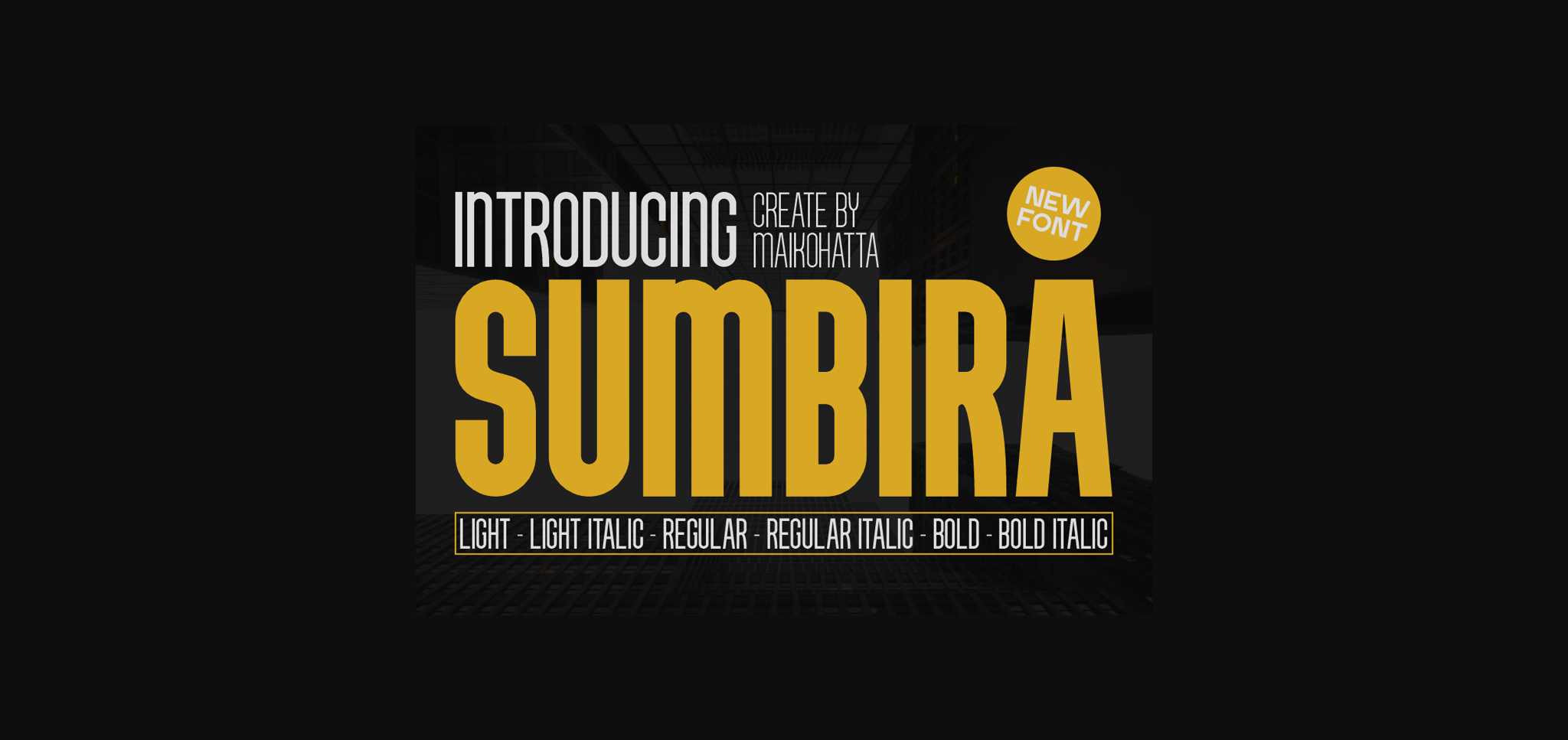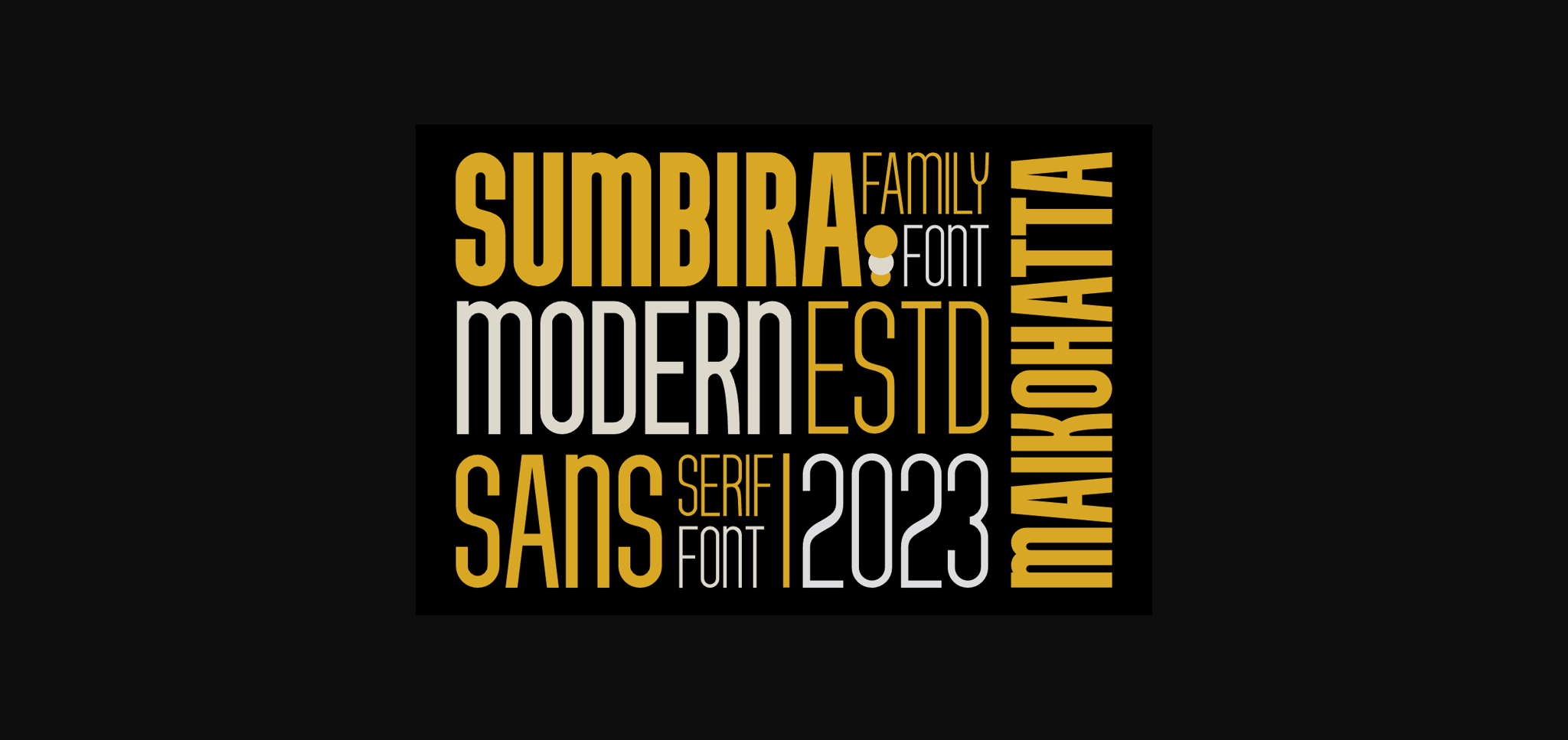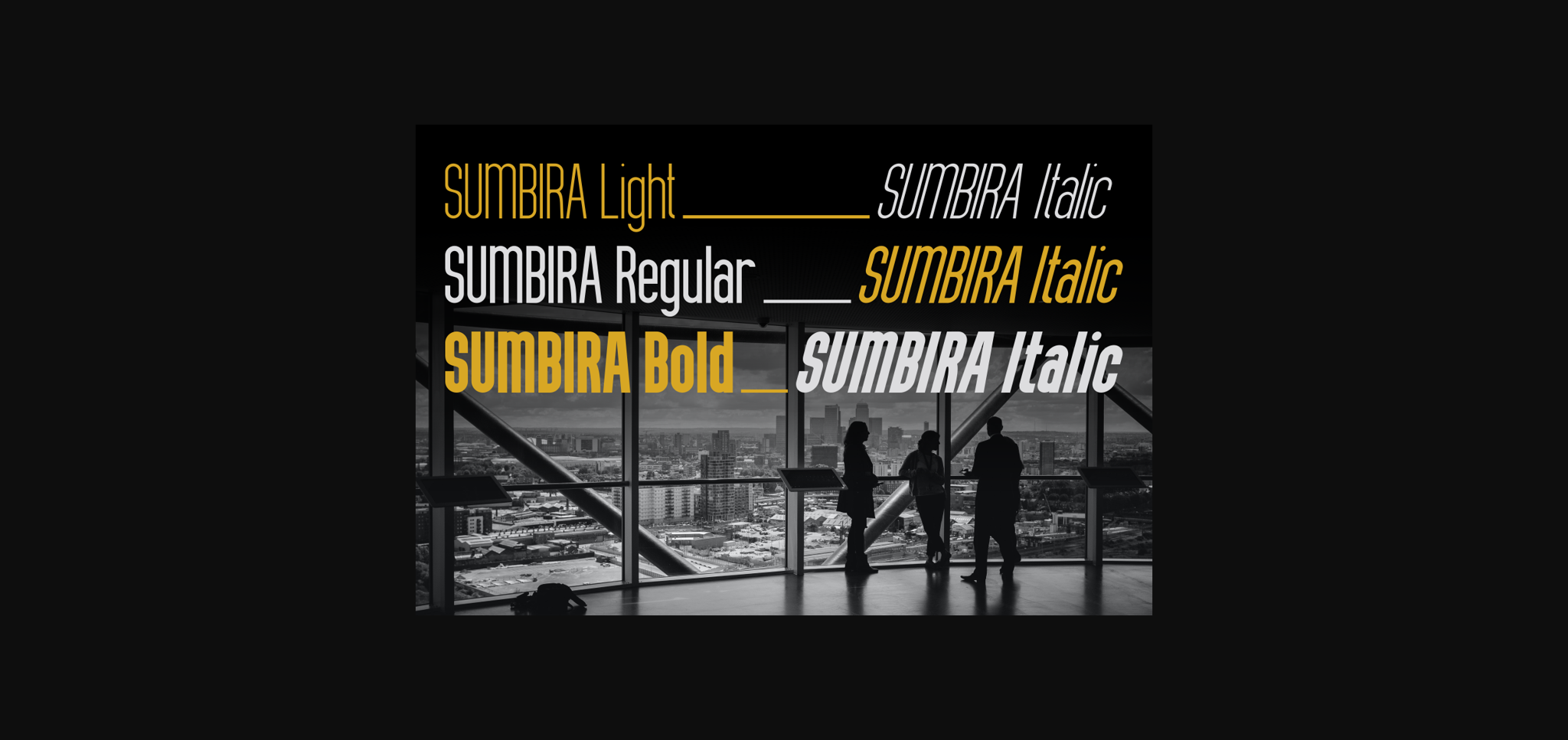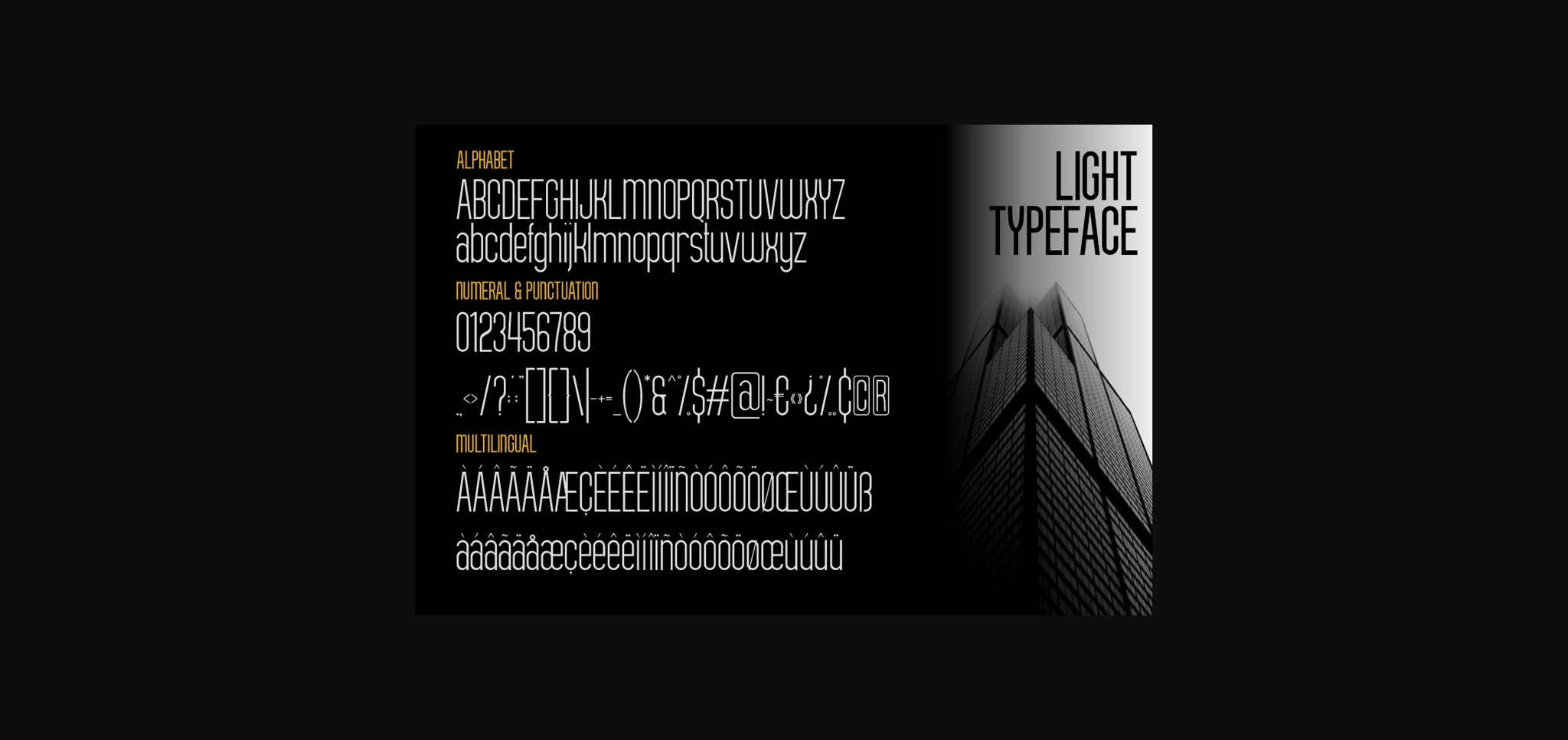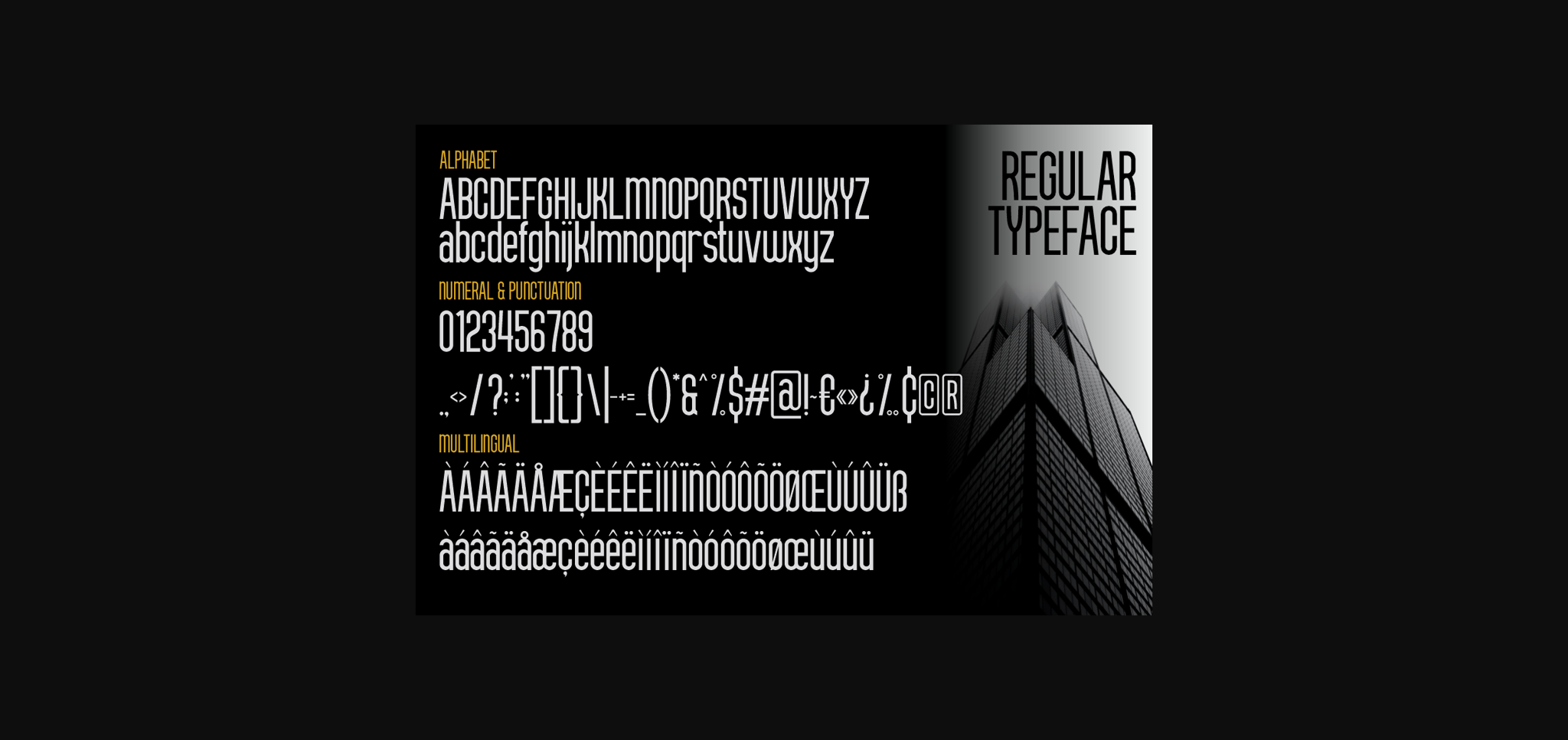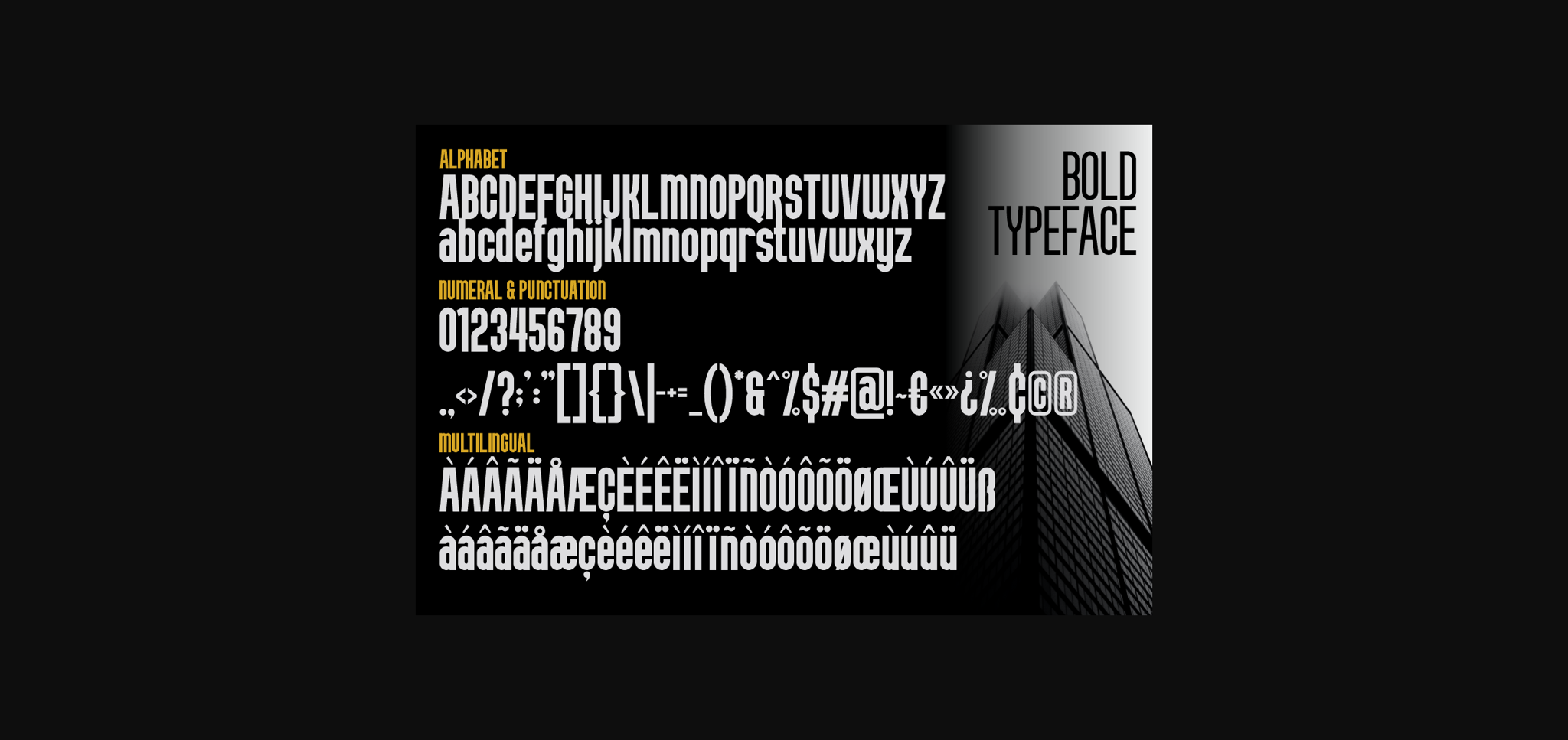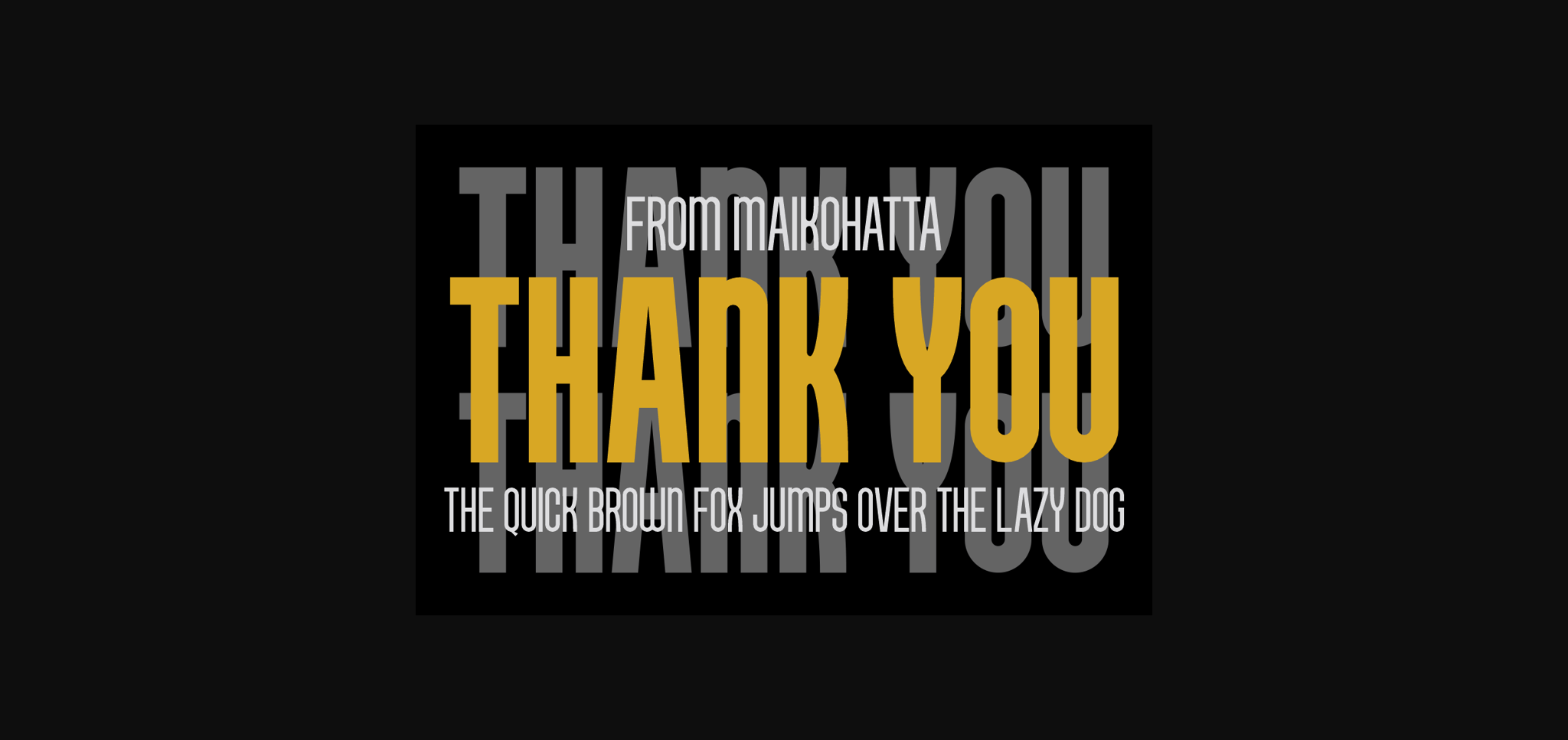
About Sumbira Font
Introducing our new product **Sumbira** Sans Serif Font Family
A sans-serif font family available in various styles is a highly versatile choice for graphic design and clean, modern text displays. This sans-serif font family offers flexibility in graphic design, and its various styles allow you to customize the appearance of text to suit your project’s needs. With various combinations, you can create attractive and easy-to-read text displays in various contexts.